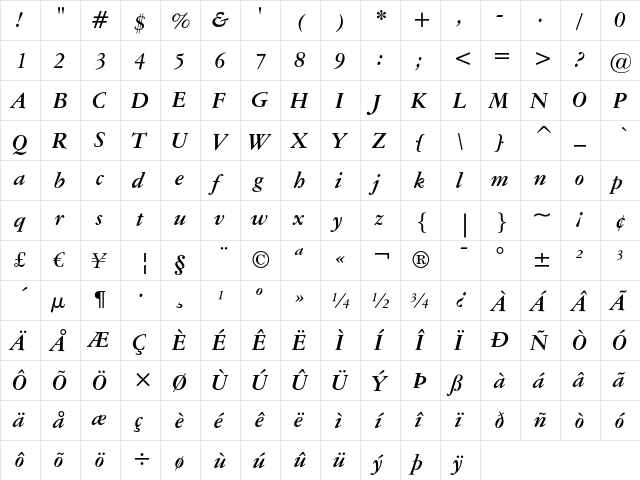
American Garamond Bold Italic Font Preview
Design Context for American Garamond Typeface
American Garamond is a composed and adaptable typeface that performs quietly and consistently across a wide range of design contexts. The dynamic lean of this cut emphasises speed and emphasis in any layout. The heavy weight commands attention and anchors typographic hierarchies.